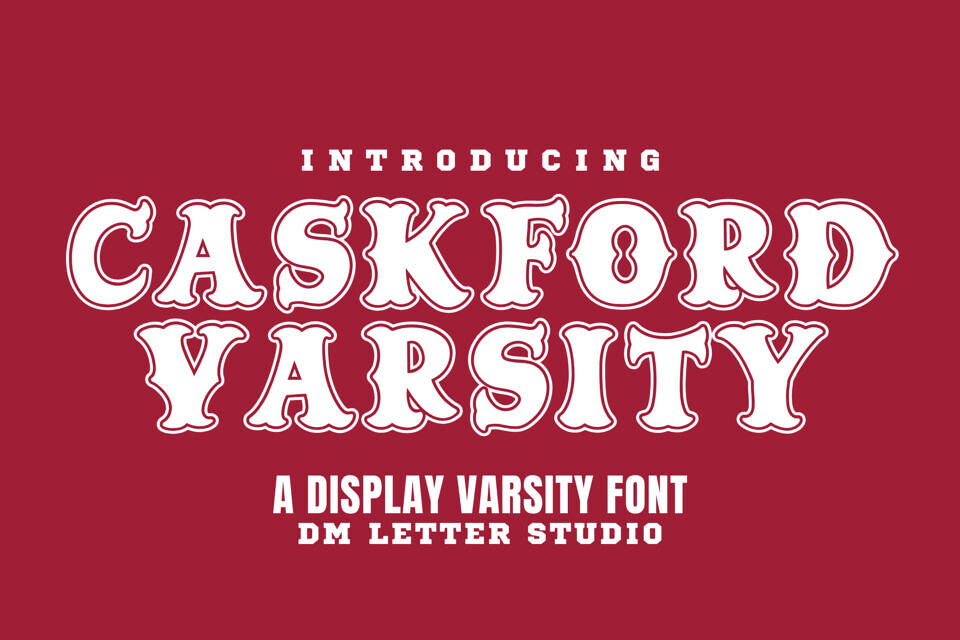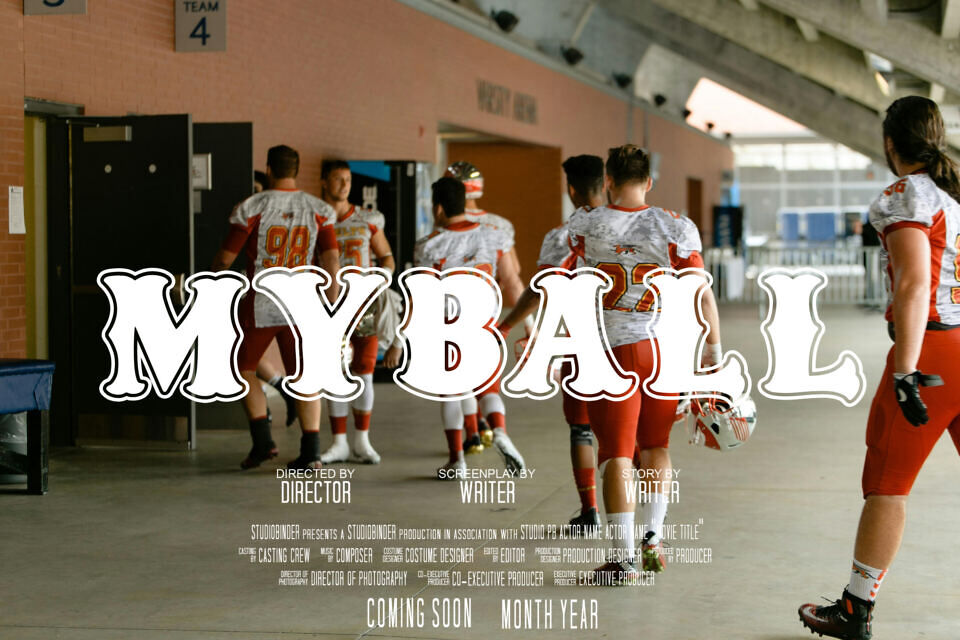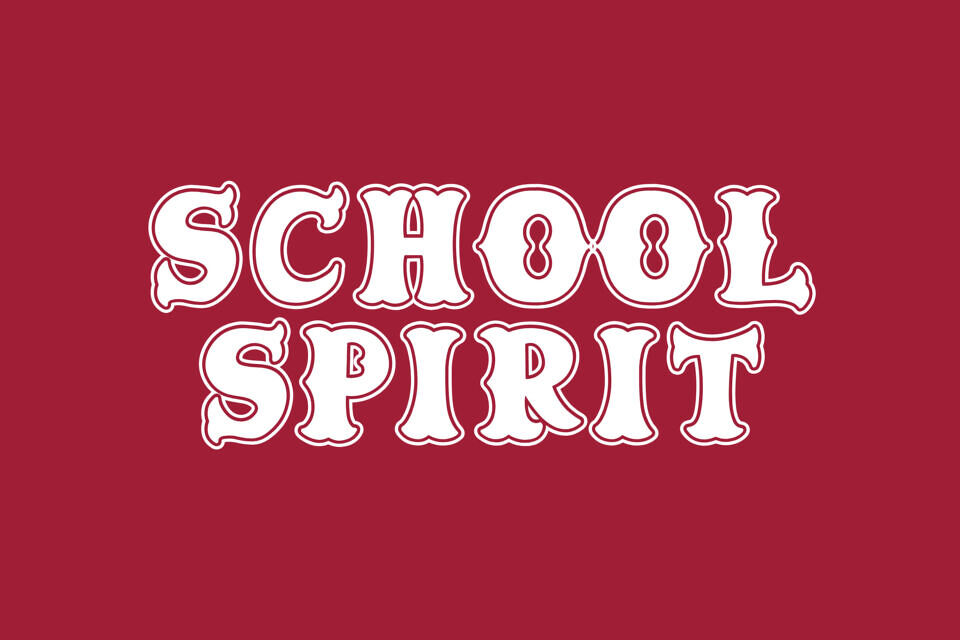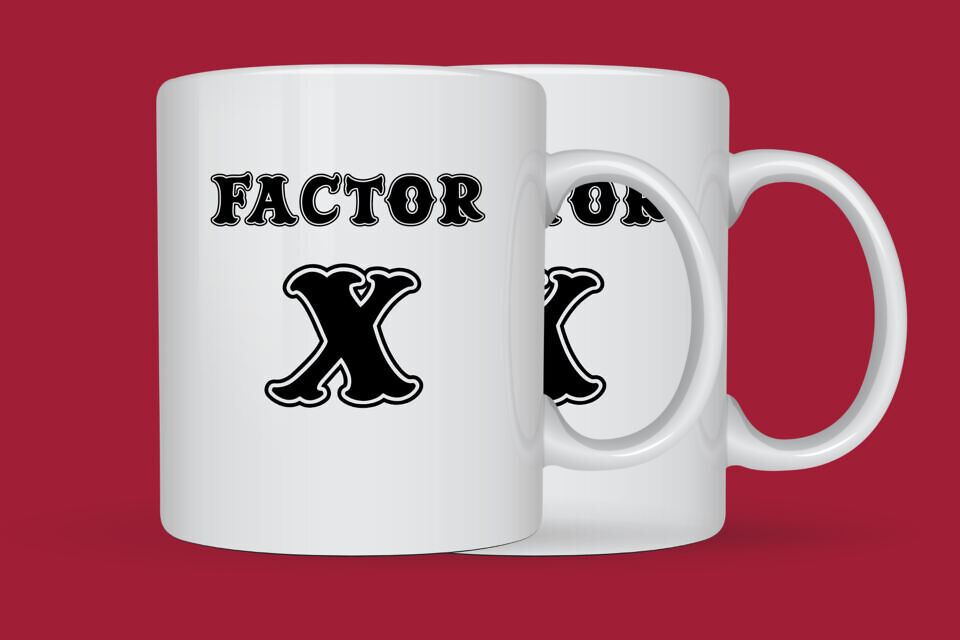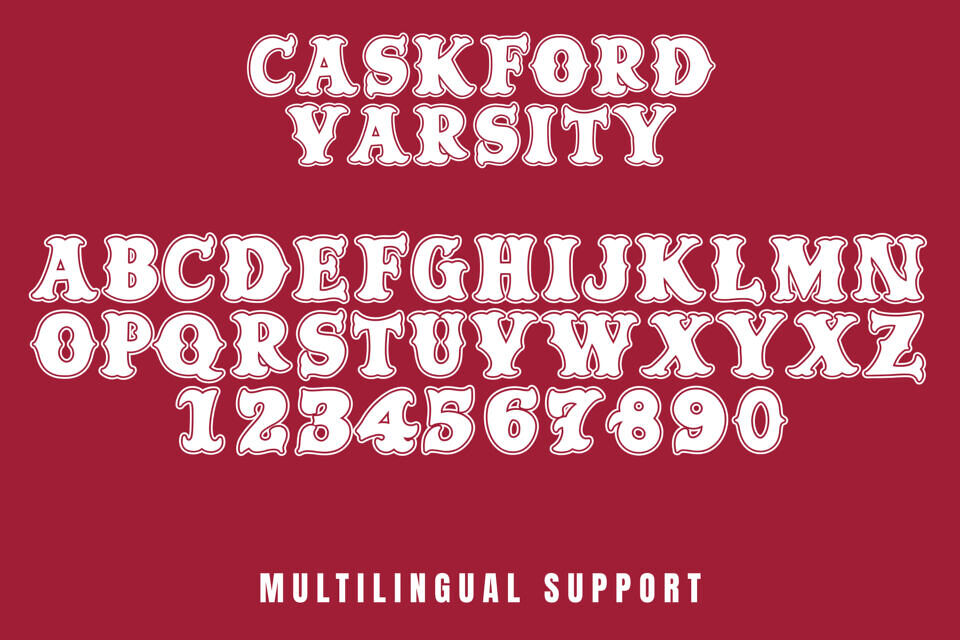
Caskford Varsity blends classic old western character with bold varsity letterforms to create a strong, confident display font. It carries the rugged spirit of frontier signage while adding the solid structure and weight you expect from collegiate typography.
The shapes are bold and balanced, so text stays readable at any size. Use it for logos, apparel, team merch, posters, labels, signage, and vintage-inspired branding. As a result, your designs feel powerful, nostalgic, and built to stand out.